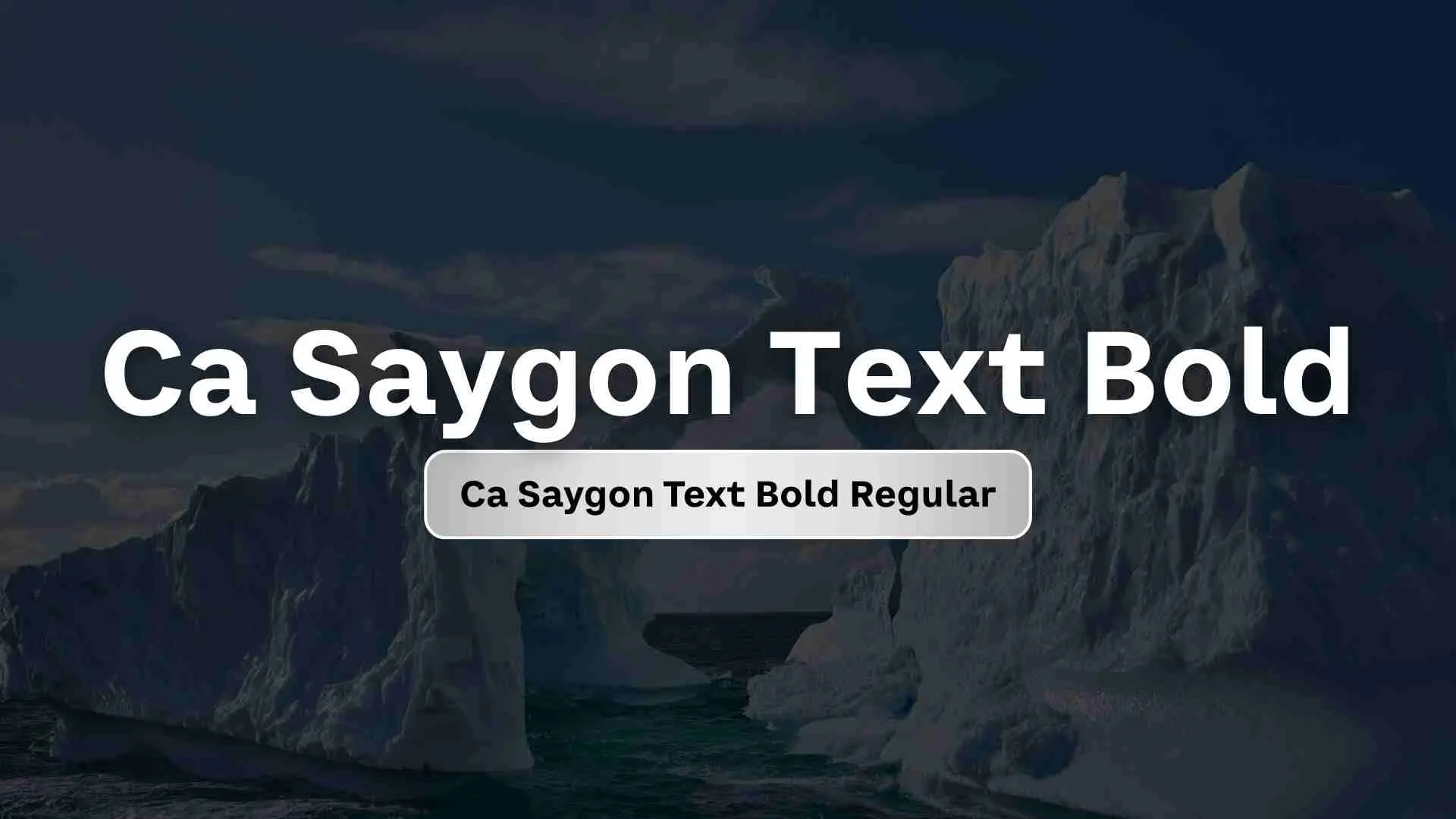
Ca Saygon Text Bold
Ca Saygon Text Bold Font
The font Ca Saygon Text Bold, designed by Sébastien Sanfilippo, falls under the Serif category & Ca Saygon Text font family. Its smooth, flowing letterforms make it a versatile choice for projects that require both elegance and readability. Ca Saygon Text is particularly well-suited for Branding, Logo, Headlines, Titles, Website, Editorial Design, Stationery and Corporate Identity. With its balance of simplicity and decorative appeal, this font brings a polished touch to both personal and professional designs.